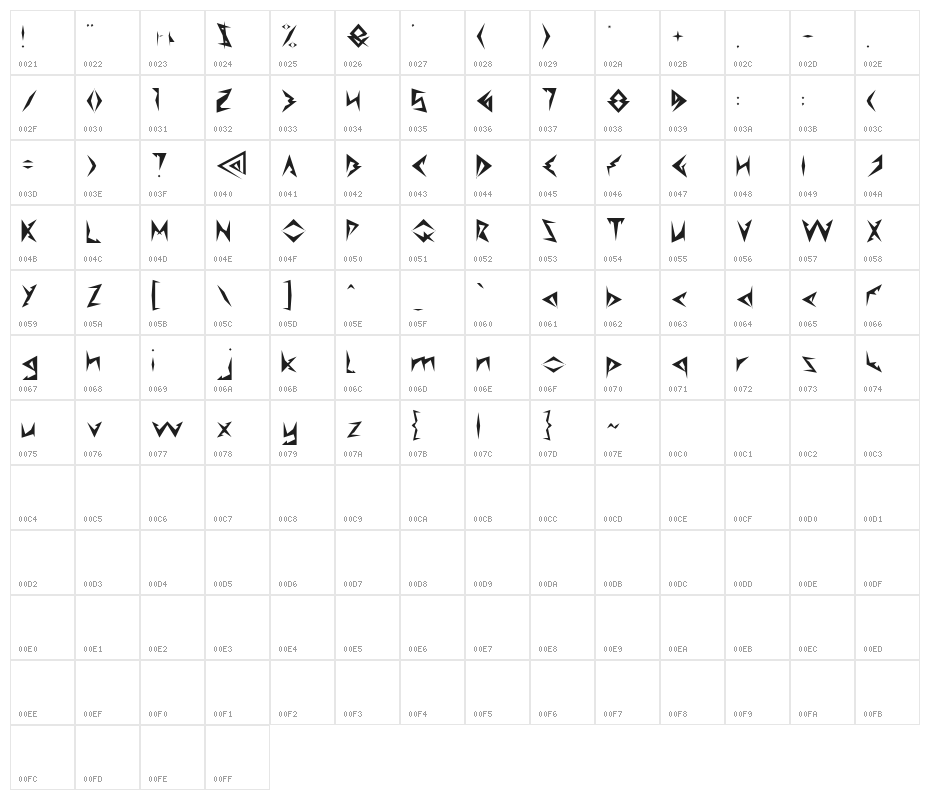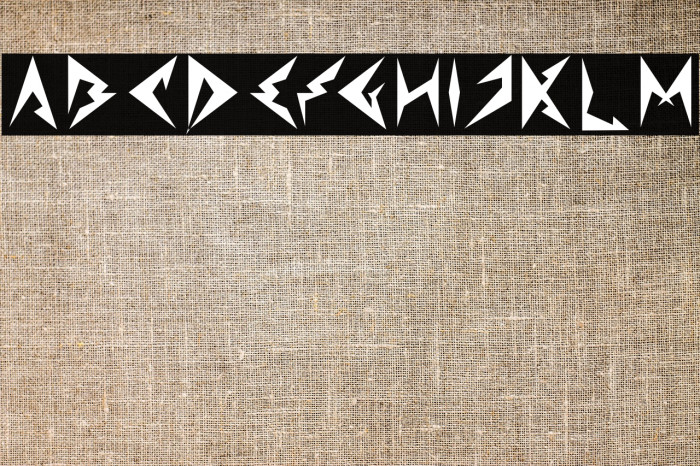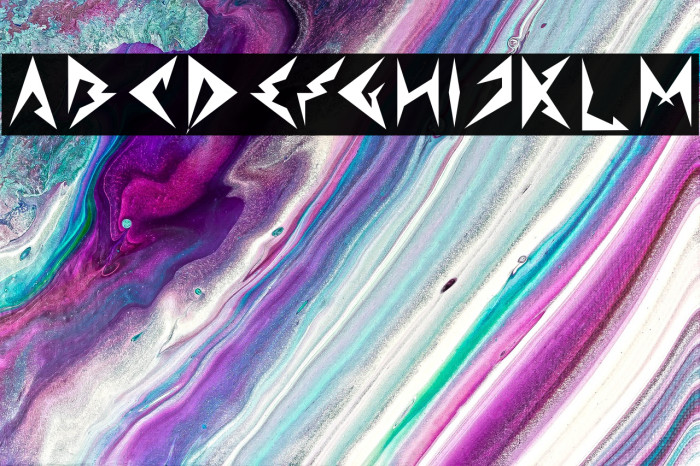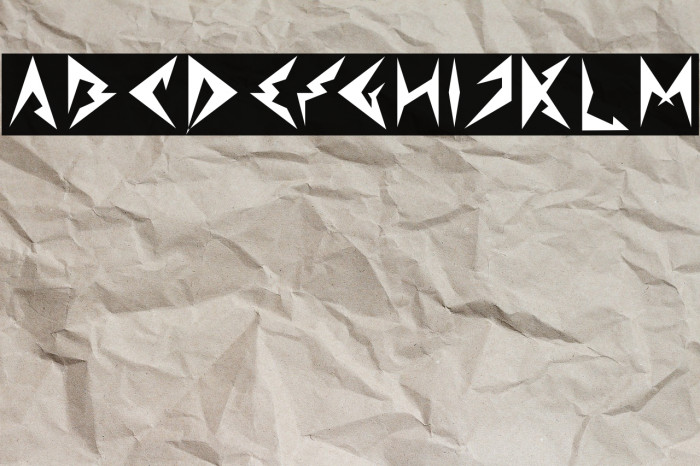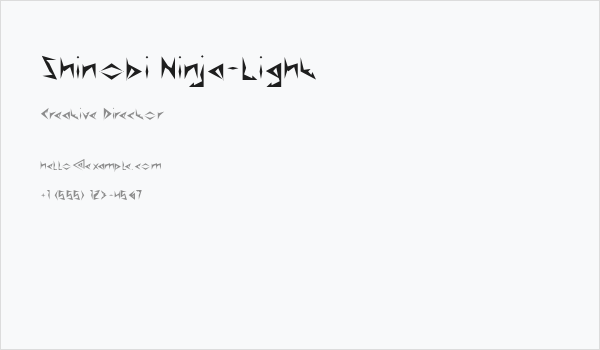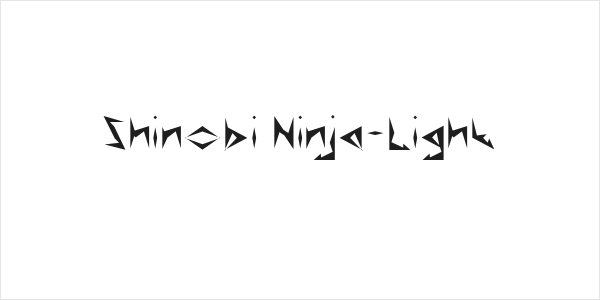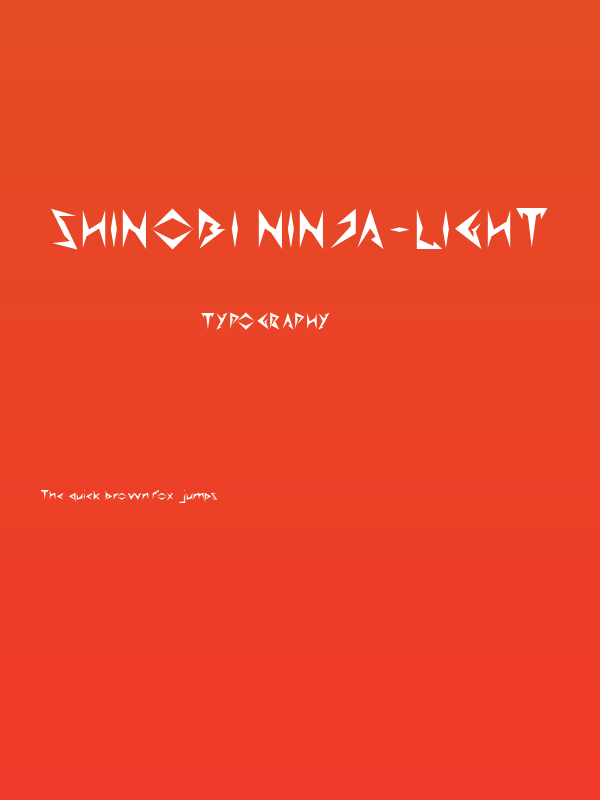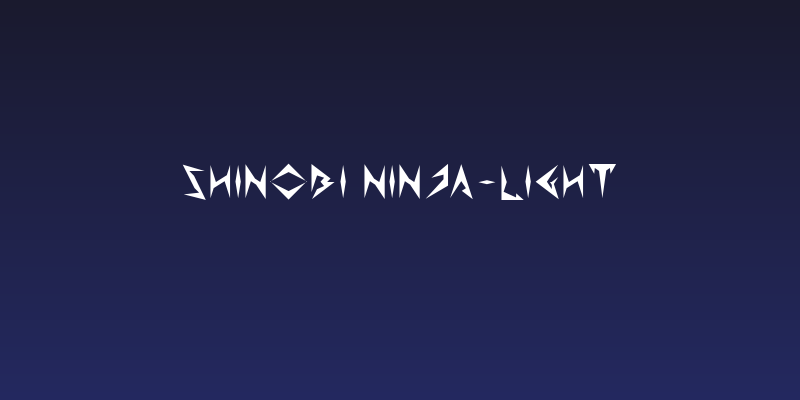
Shinobi Ninja-Light Font
Shinobi Ninja-Light Description
This font features a bold, angular design with sharp, geometric edges that evoke a sense of movement and energy. The characters are highly stylized, with each letter incorporating unique triangular and pointed elements that create a dynamic and aggressive appearance. The uppercase and lowercase letters maintain a consistent aesthetic, while the numbers and special characters follow suit with their own distinctive flair. The overall look is reminiscent of a futuristic or ninja-inspired theme, making it ideal for projects that require a strong visual impact.
| Overall Style | Modern, Futuristic |
| Proposed Projects | Ideal for video game titles, movie posters, branding for extreme sports, or any project needing a bold, energetic typeface. |